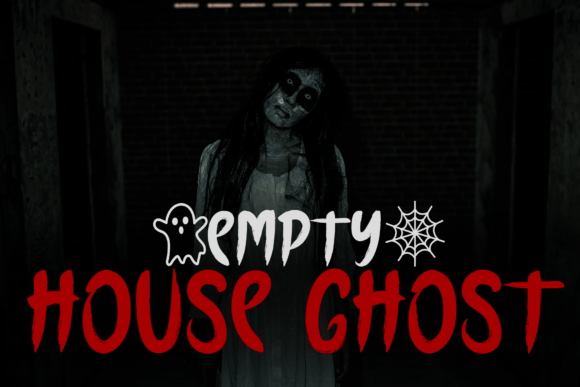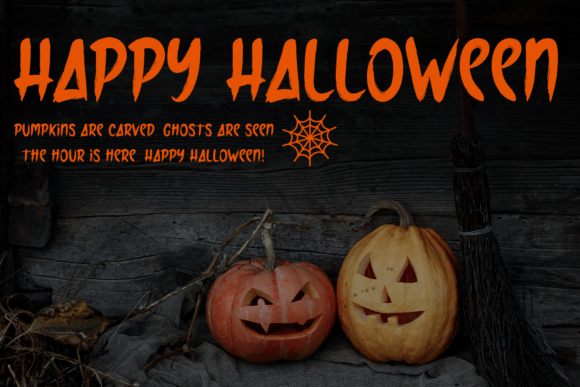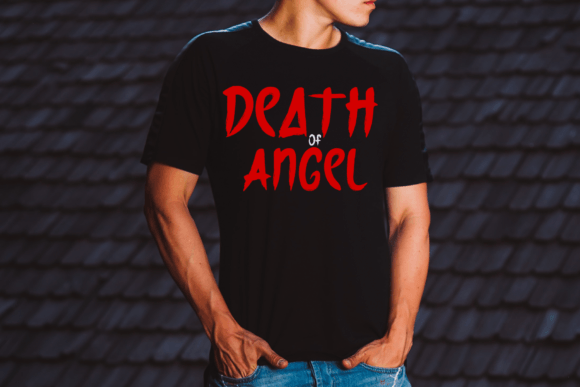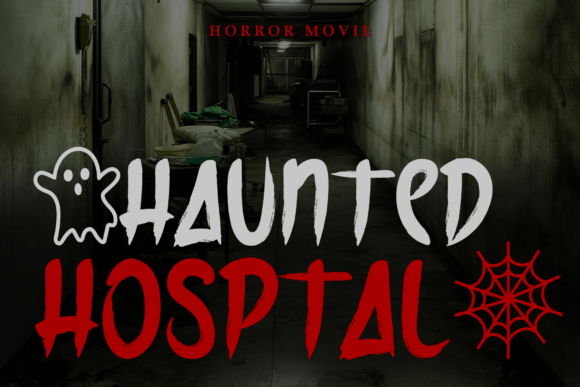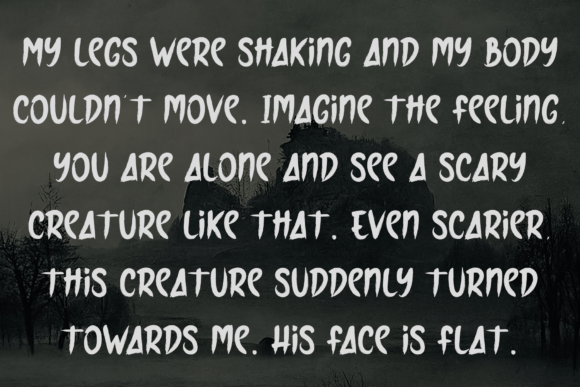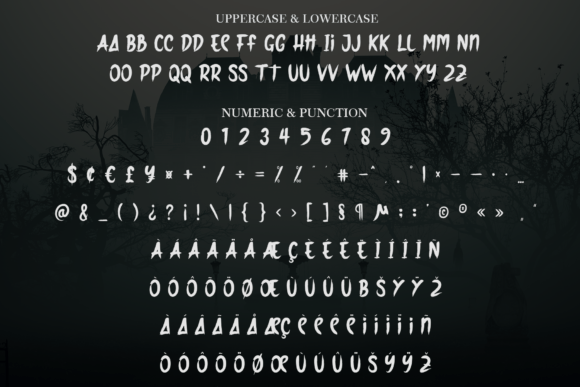
Unleash the Spook: Discover the Eerie Charm of Ghost Nest Font
As the witching hour approaches, designers and crafters are on the lookout for the perfect typography to set the tone for their Halloween-themed projects. Look no further than the Ghost Nest Font, a spine-tingling typeface that combines a minimalist brushstroke effect with eerie ghostly elements and spider webs. This font is sure to send shivers down the spines of your audience and leave a lasting impression.
The Haunting Beauty of Ghost Nest Font
Ghost Nest Font boasts a unique and captivating design that is both scary and mesmerizing. The minimal brushstroke effect gives the font a organic, hand-crafted feel, while the additional elements of ghosts and spider webs add a touch of the macabre. The result is a font that exudes an ambiance of horror, perfect for creating a spooky atmosphere in any design project.
Perfect for Halloween-themed Projects
Whether you’re designing invitations, postcards, posters, or headings for a Halloween event, Ghost Nest Font is the perfect choice. Its eerie charm and haunting beauty make it an ideal fit for any project that requires a touch of the supernatural. The font’s versatility also makes it suitable for use in a variety of settings, from formal invitations to social media graphics.
What Makes Ghost Nest Font Stand Out?
- Unique Design: Ghost Nest Font features a one-of-a-kind design that combines a minimalist brushstroke effect with ghostly elements and spider webs.
- Versatility: The font can be used in a variety of settings, from formal invitations to social media graphics.
- Eerie Ambiance: Ghost Nest Font exudes an ambiance of horror, perfect for creating a spooky atmosphere in any design project.
Tips for Using Ghost Nest Font
To get the most out of Ghost Nest Font, here are a few tips to keep in mind:
- Use it Sparingly: While Ghost Nest Font is perfect for Halloween-themed projects, it can be overwhelming if used excessively. Use it sparingly to create a lasting impact.
- Pair it with Other Fonts: Ghost Nest Font pairs well with other fonts, especially those with a bold and playful feel. Experiment with different font combinations to find the perfect fit for your project.
- Experiment with Colors: The font looks great in a variety of colors, from bold and bright to muted and pastel. Experiment with different colors to find the perfect fit for your project.
Where to Use Ghost Nest Font
Ghost Nest Font is versatile and can be used in a variety of settings, including:
- Halloween Invitations: Create spooky and inviting Halloween invitations that will set the tone for your party or event.
- Posters and Flyers: Use Ghost Nest Font to create eye-catching posters and flyers that will grab the attention of your audience.
- Social Media Graphics: Add a touch of the supernatural to your social media graphics with Ghost Nest Font.
- Headings and Titles: Use Ghost Nest Font to create bold and eye-catching headings and titles for your Halloween-themed projects.
Ghost Nest Font is a unique and captivating typeface that is perfect for Halloween-themed projects. Its eerie charm and haunting beauty make it an ideal fit for any design project that requires a touch of the supernatural. With its versatility, ease of use, and bold design, Ghost Nest Font is sure to become a go-to font for designers and crafters looking to create spooky and memorable designs.